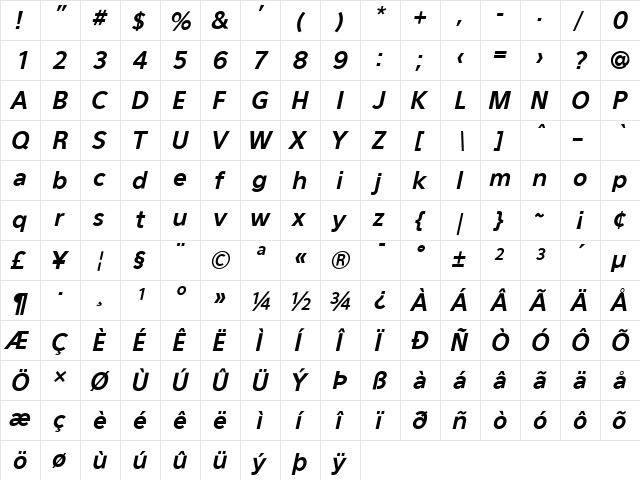
Eau Sans Bold Lining Oblique
Design Context for Eau Typeface
Eau is a composed and adaptable typeface that performs quietly and consistently across a wide range of design contexts. The slanted form adds forward momentum and visual energy. The heavy weight commands attention and anchors typographic hierarchies.
Pro Tip: Try Eau for annotation and caption copy alongside an upright companion — the contrast in angle creates a dynamic but ordered typographic system.